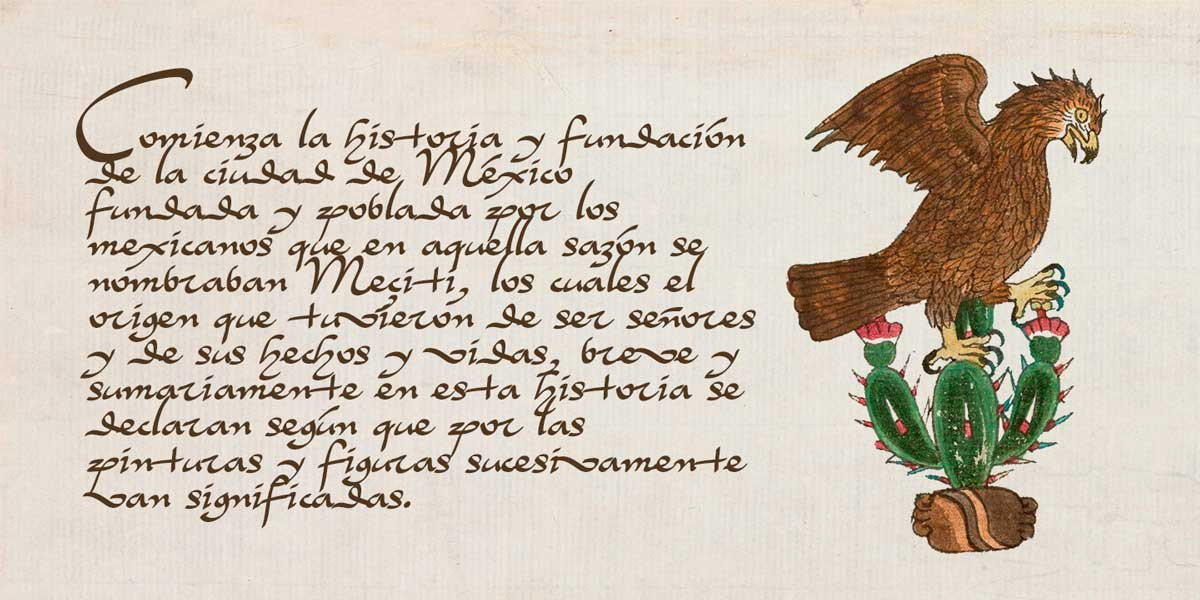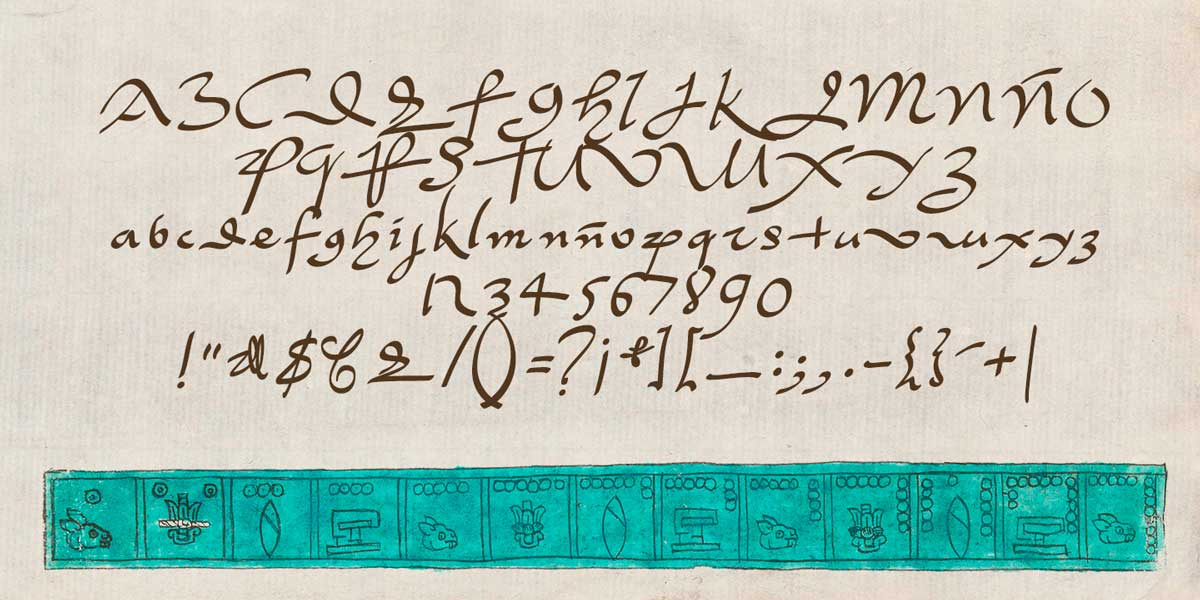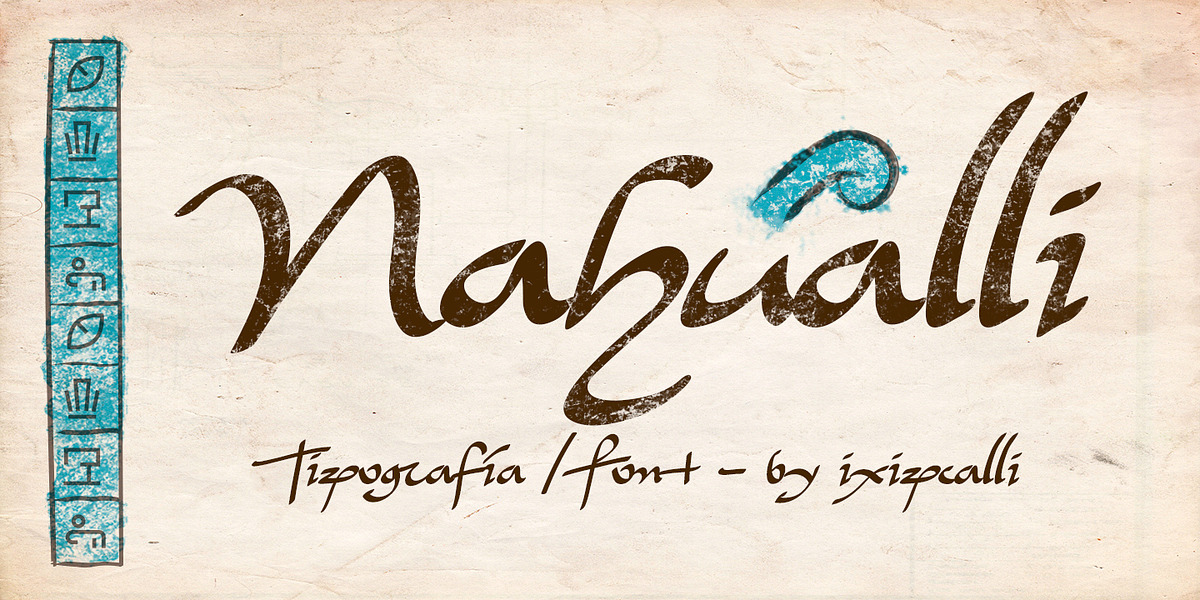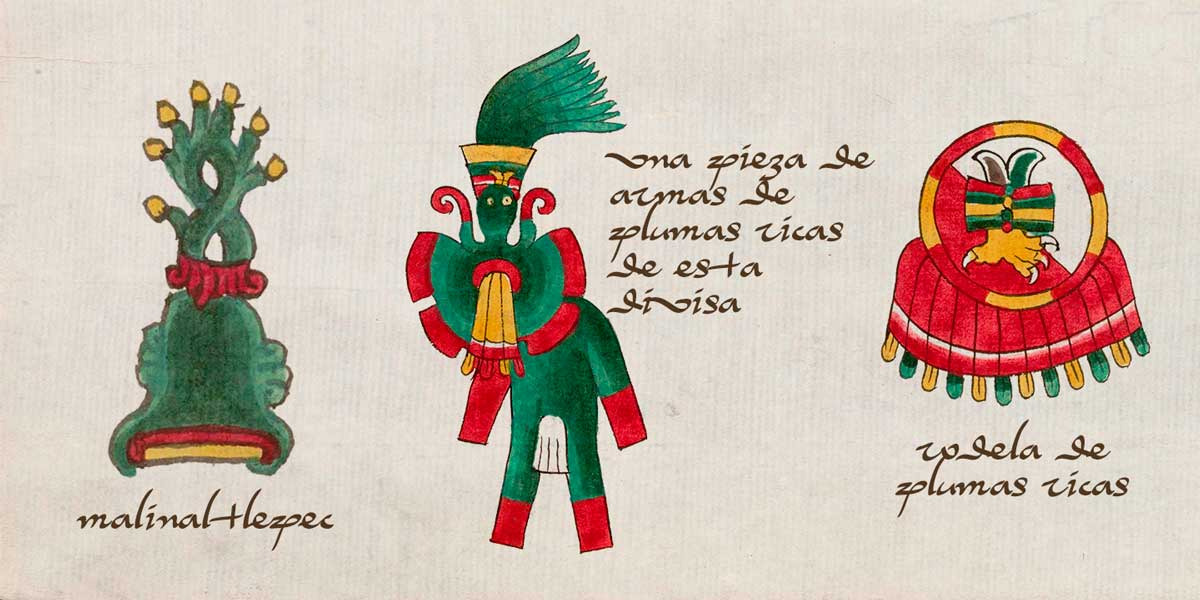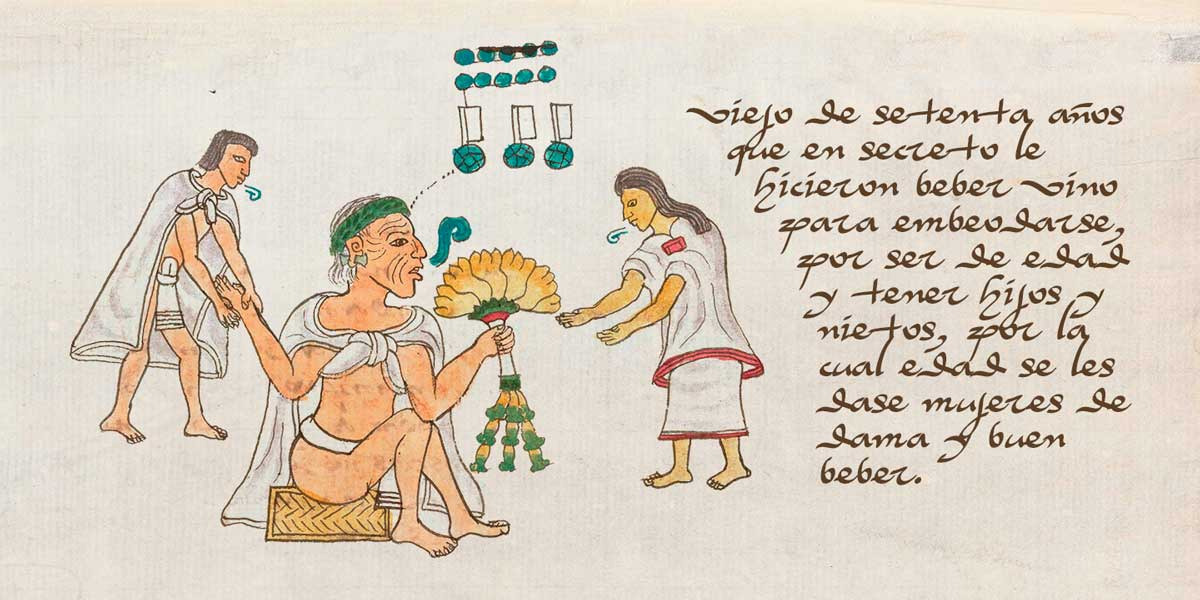
Nahualli
The Nahualli typeface is based on the Spanish writings of the 16th-century Codex Mendoza. Although it is not a clear style, the calligraphy provides a perfect style for historical documents of the period.